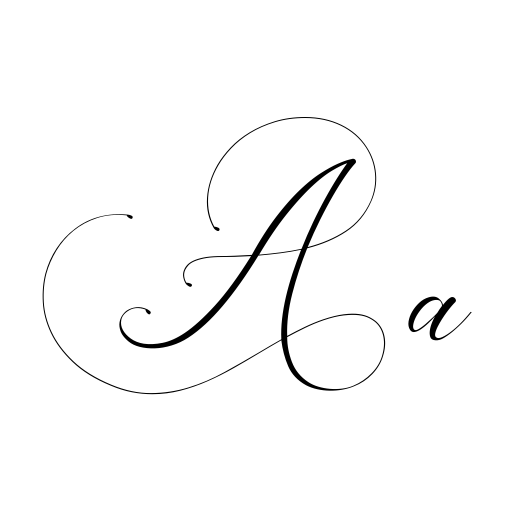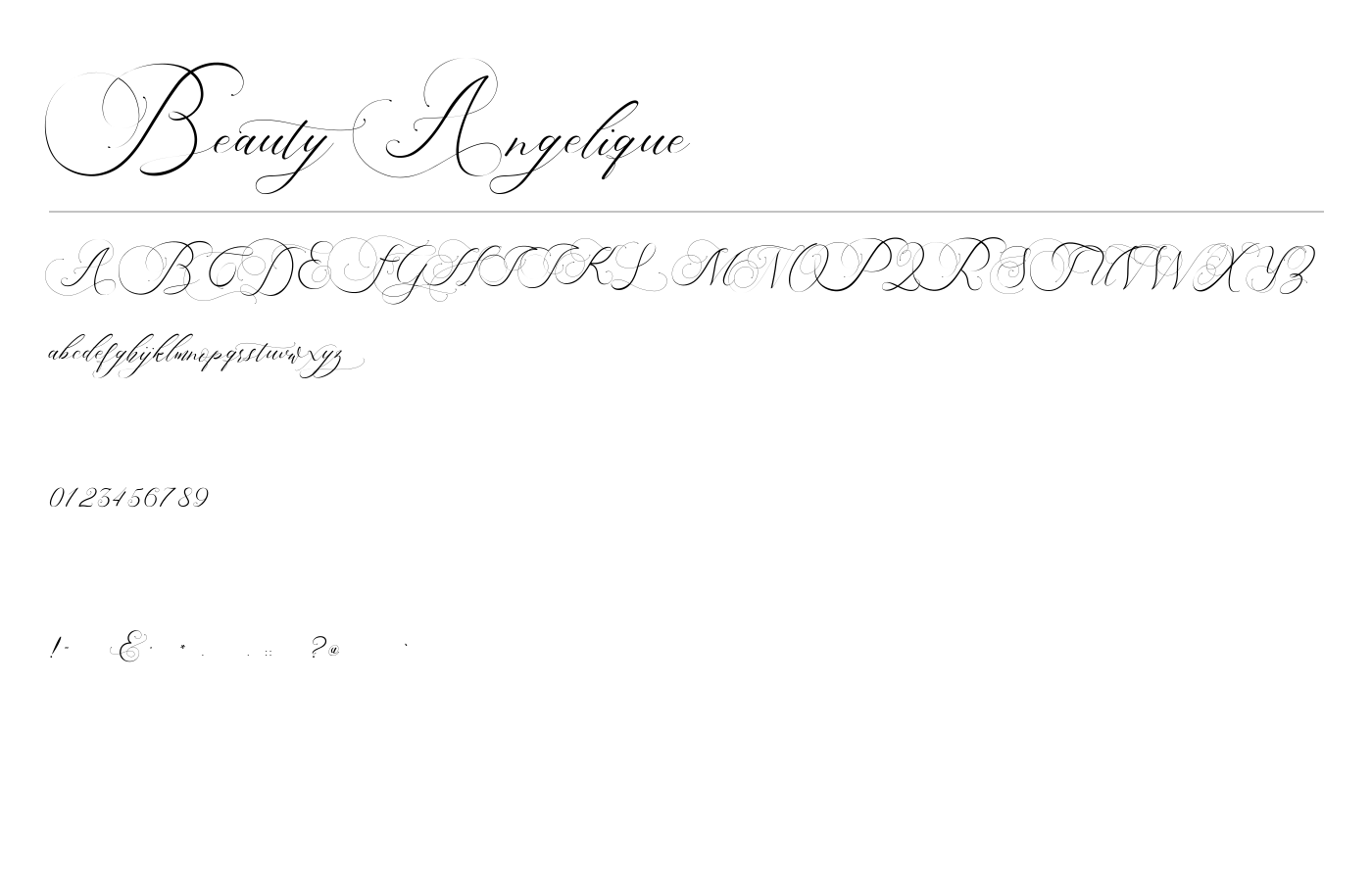
Beauty Angelique is an elegant script font characterized by its delicate, flowing lines and intricate swashes that add a romantic and luxurious feel. Its thin, graceful strokes and high contrast create a refined, sophisticated look perfect for wedding invitations, upscale branding, and feminine editorial designs where a touch of classic beauty and charm is desired. This font excels in decorative headlines and display uses, lending an air of refinement and timeless elegance.
Beauty Angelique Font
About Beauty Angelique Font